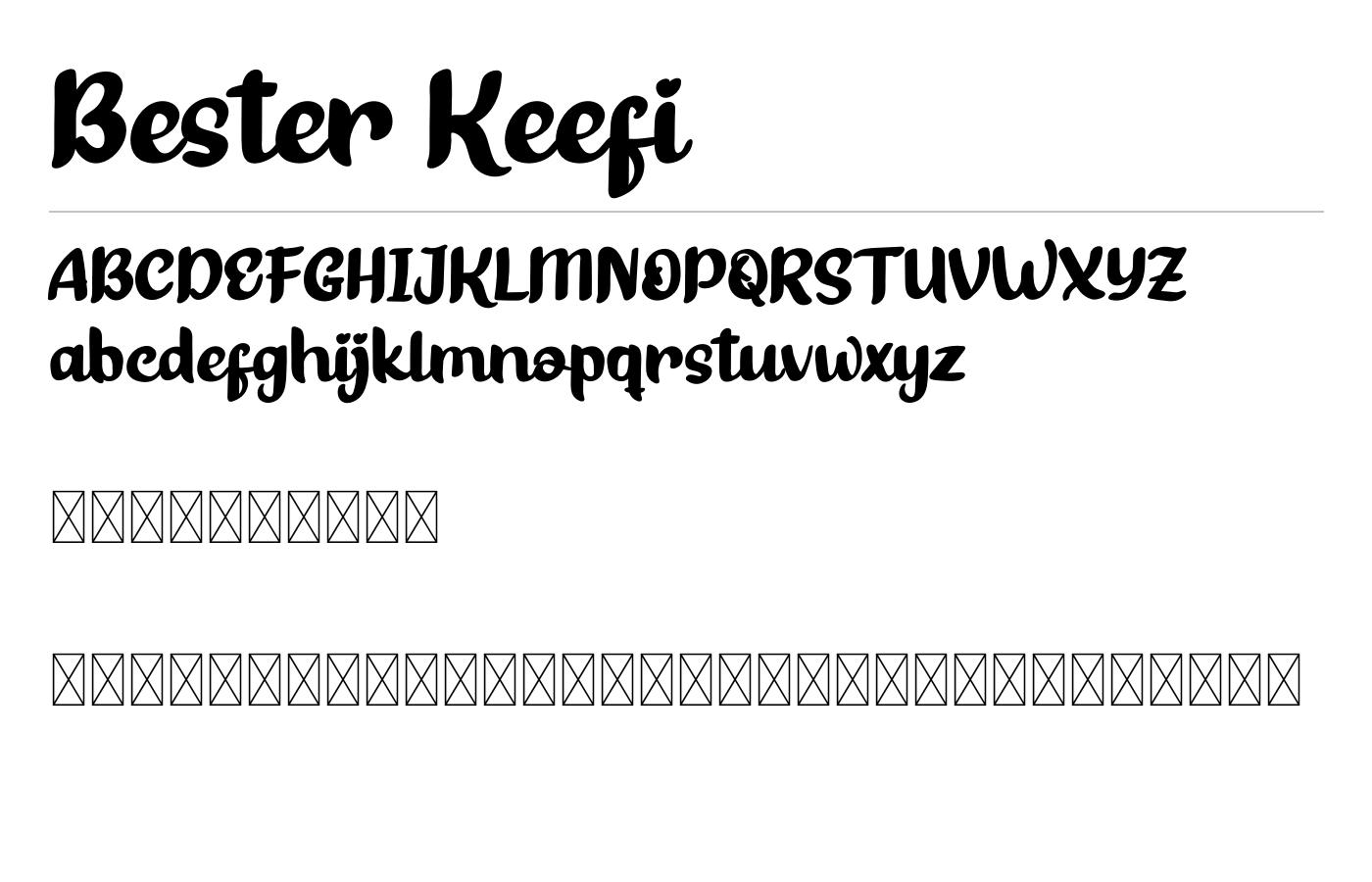
Bester Keefi is a playful and bold script font characterized by its smooth, rounded strokes and lively letterforms, creating a friendly and approachable vibe. Its moderately high x-height and consistent weight make it highly readable while maintaining a casual, handwritten feel that works well for branding, invitations, and creative projects where a warm, informal tone is desired. This font is ideal for designs that aim to convey personality and charm without sacrificing clarity.
Bester Keefi Font